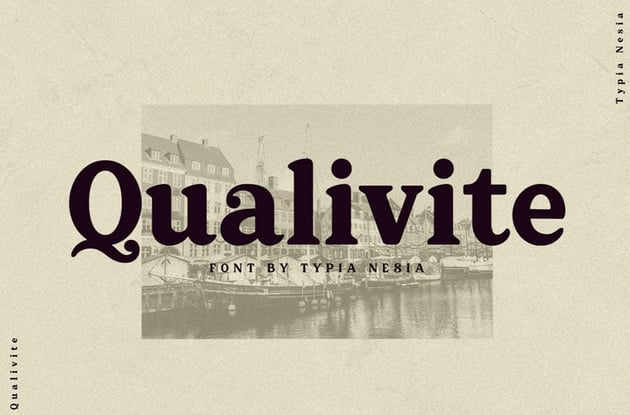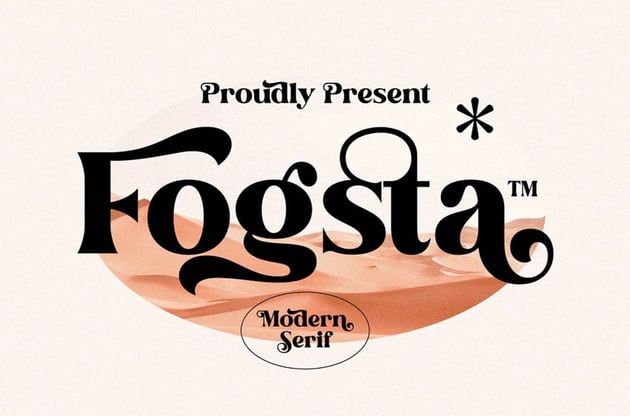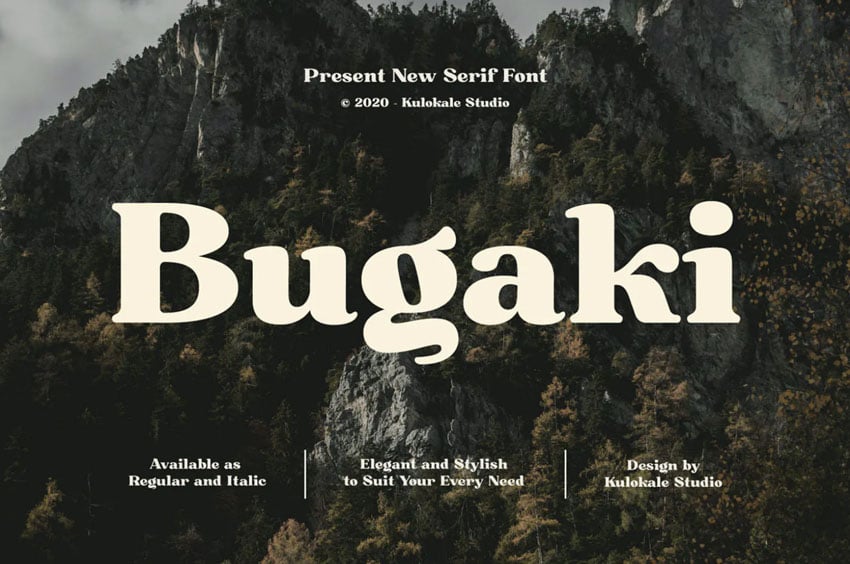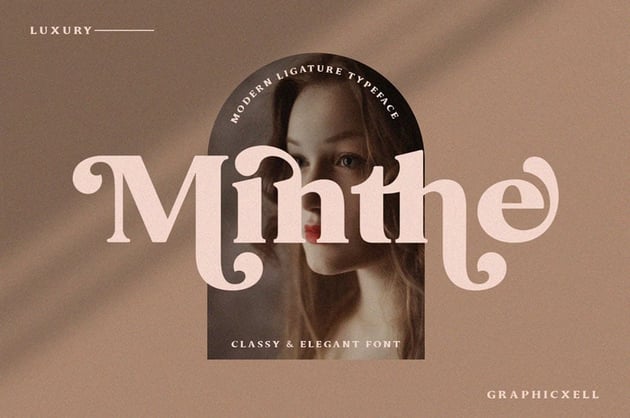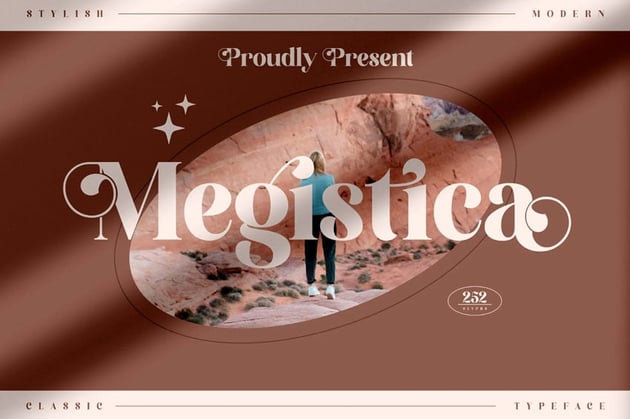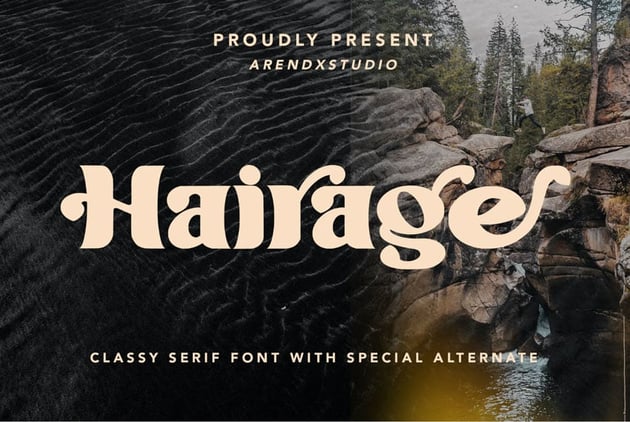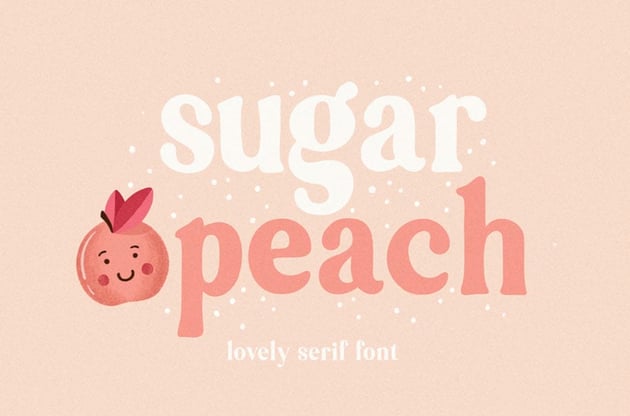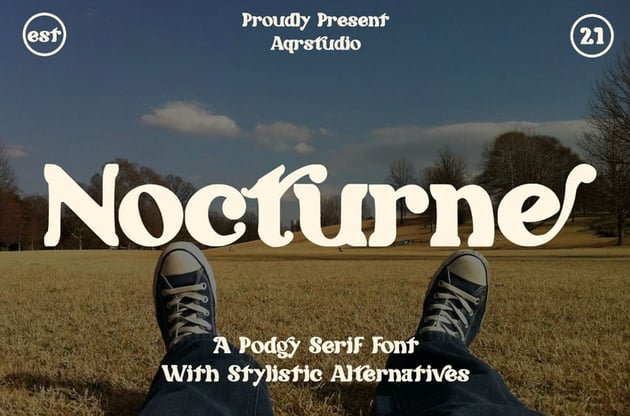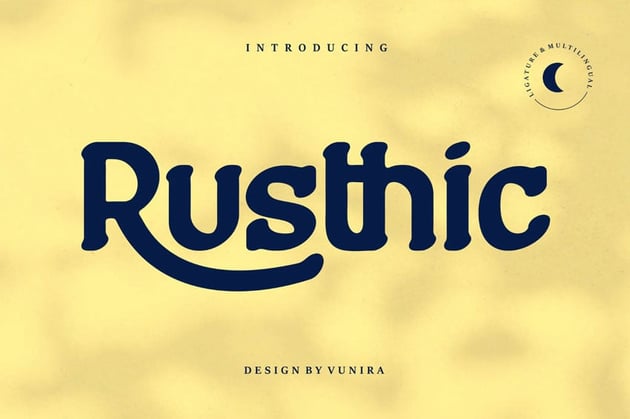
What Is a Rounded Serif Font?
Rounded serif fonts are a style of serif. Not sure what a serif is? A serif is an extension at the end of a letter. Type is often categorized as a serif or a sans serif font. This would be with or without this extra extension or line at the end of the letters.
Keep in mind that modern type design is often flexible with "the rules". You may find a round serif font that also works in other aesthetics, as we see in a wedge serif. This would be a serif that tapers, however, it also has rounded elements and other decorative curves.
Check out these rounded serif font examples below:
Choose Your Favorite Rounded Serif Font